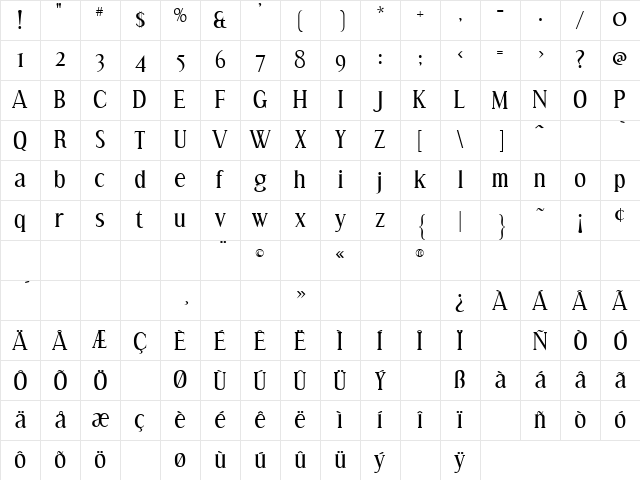
Effloresce Regular Free Font
Effloresce Regular
Design Context for Effloresce
Effloresce is a composed and adaptable typeface that performs quietly and consistently across a wide range of design contexts.